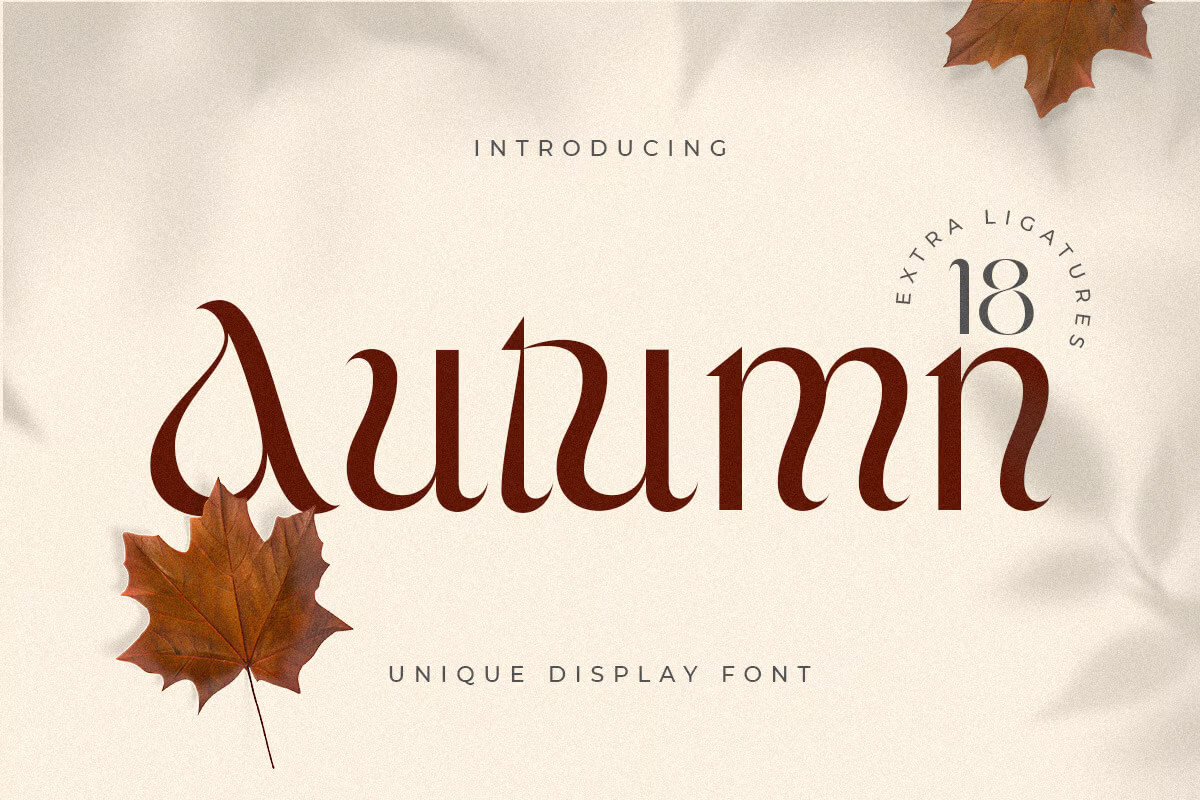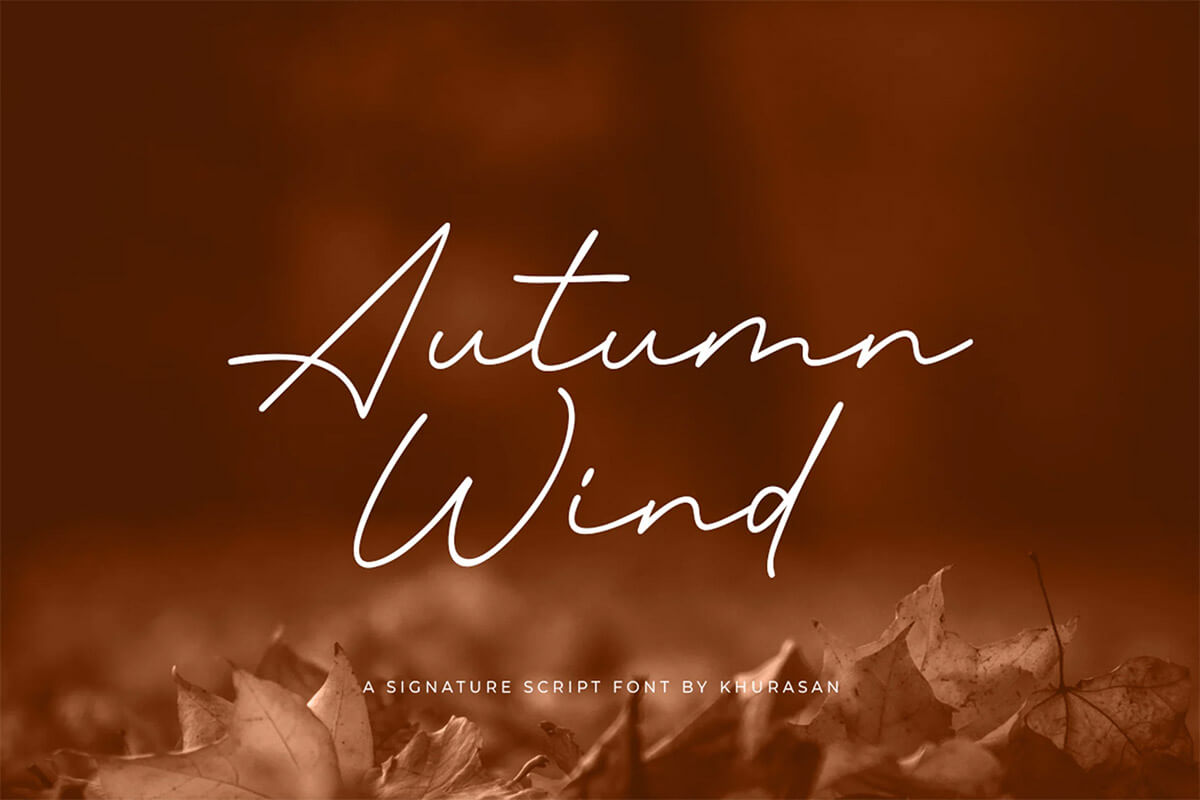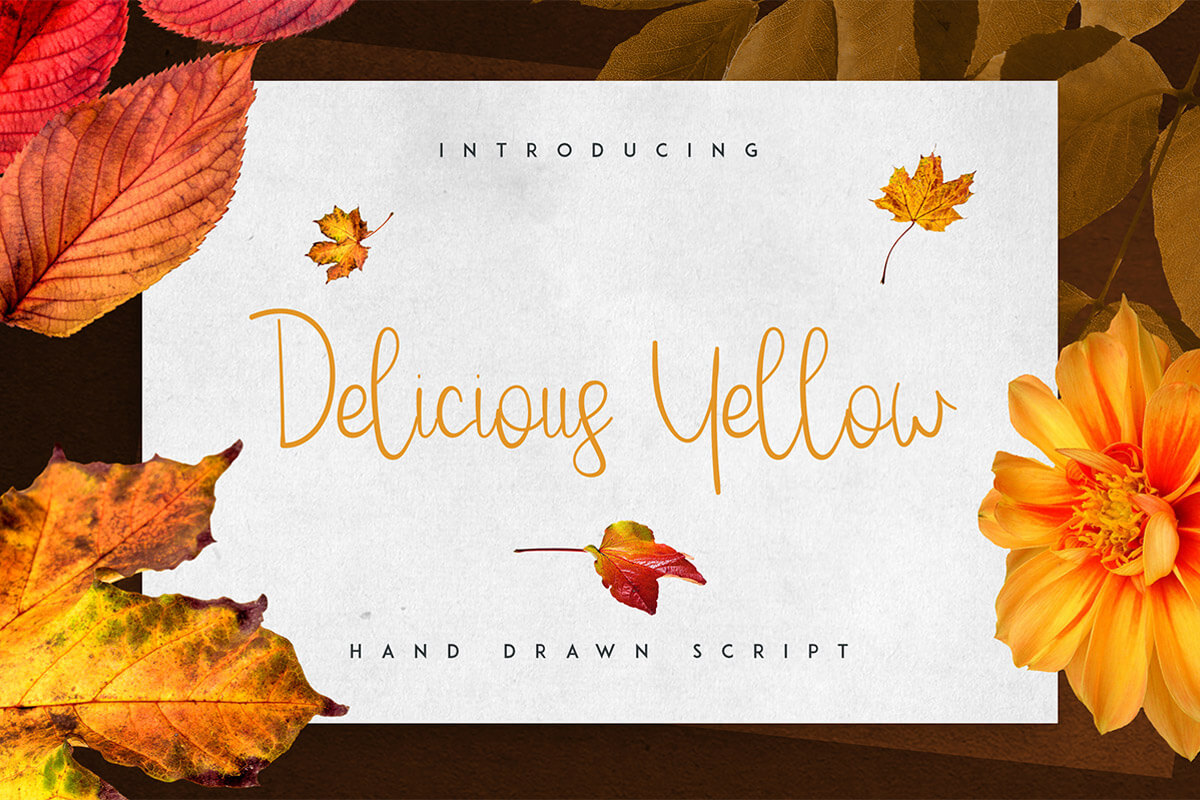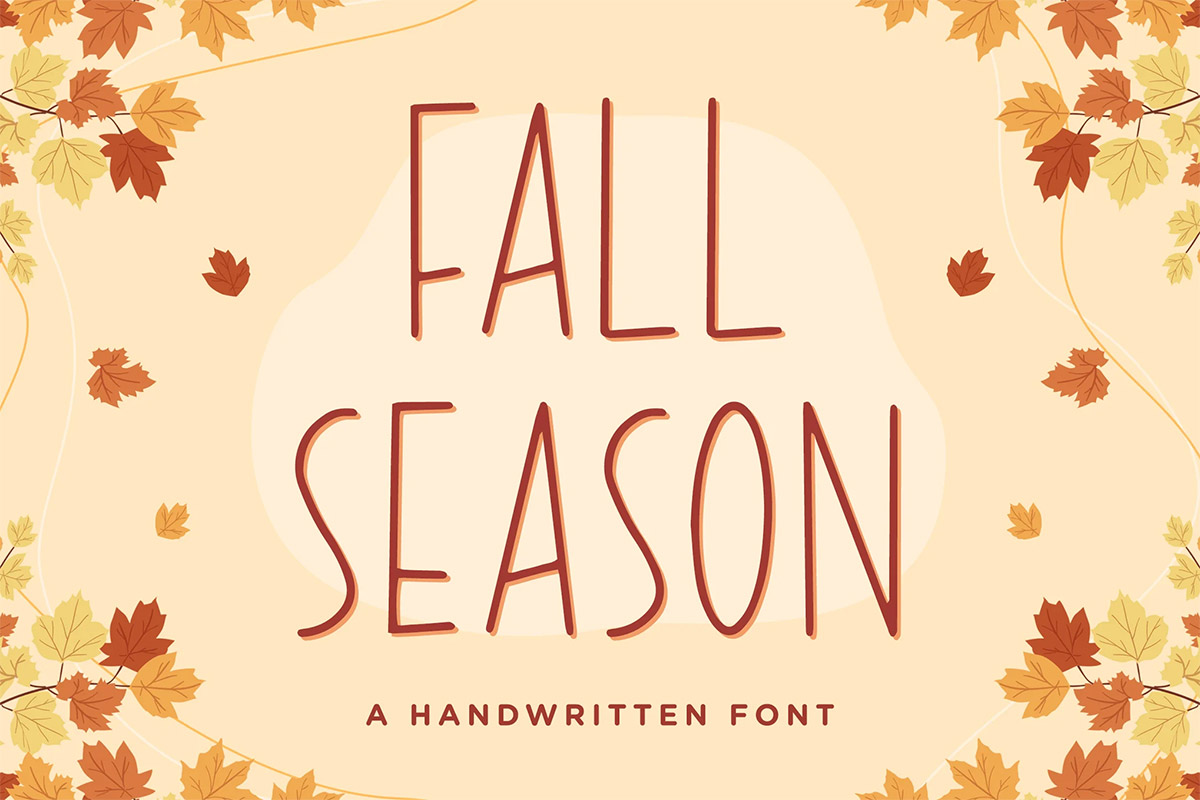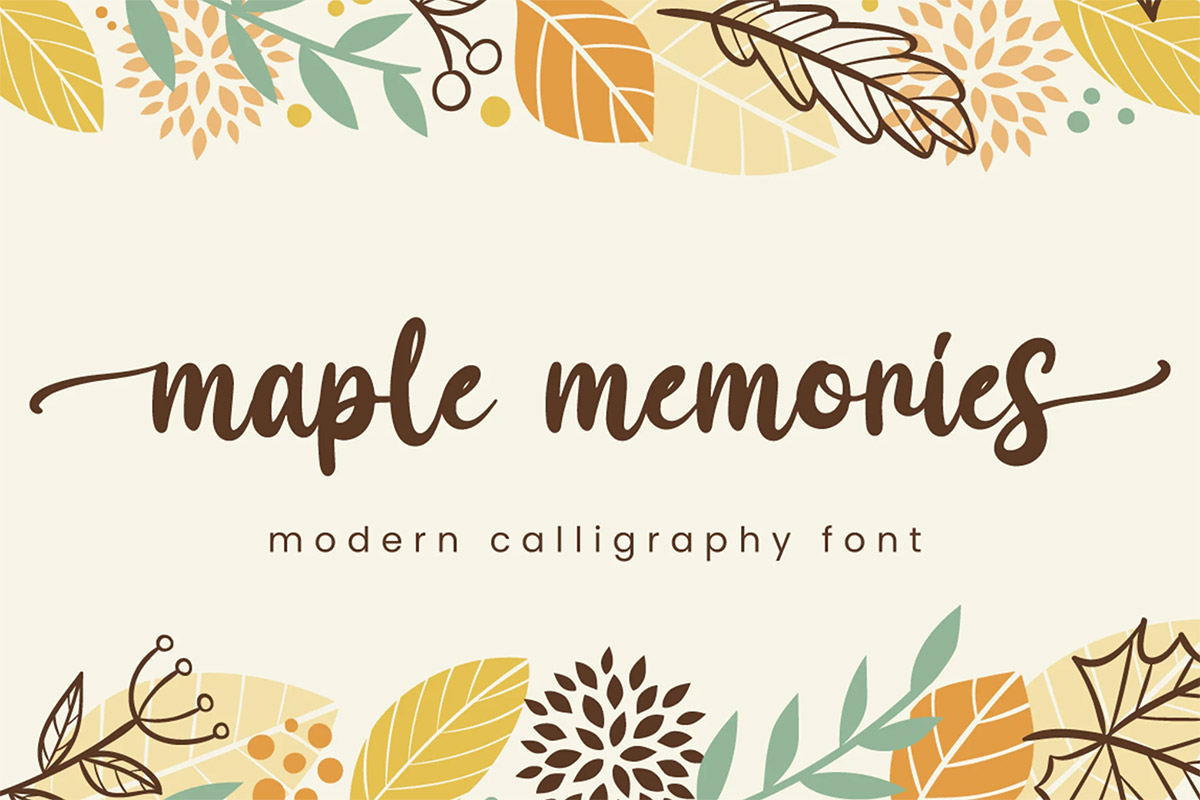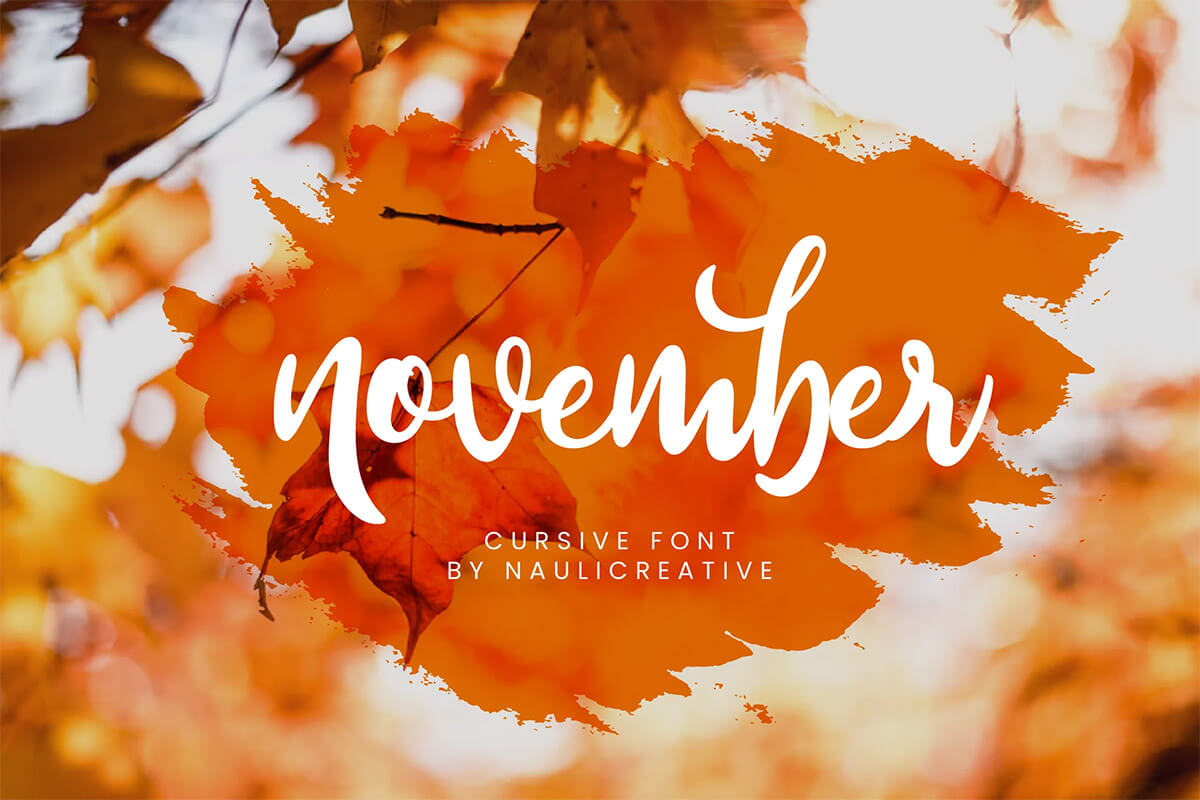
25 Best Fall Fonts (November Feel)
Crisp Air. Warm Tones. Beautiful Fonts.
Fall hits different in November. The leaves are deep amber, sweaters are out, and every design project suddenly wants that cozy, lived-in charm. Whether you’re working on seasonal prints, Thanksgiving invites, or Pinterest quotes with pumpkin vibes — the right font can wrap your design in that perfect autumn feeling.
This collection brings you 25 handpicked fonts that feel like November — think handwritten warmth, rustic serifs, soft curves, and earthy textures. They’re made for fall lovers, storytellers, crafters, and anyone trying to bottle up that crisp, golden-hour magic.
From vintage charm to modern coziness, these fonts are versatile, emotional, and ready to make your seasonal designs shine.
Let your designs fall into place. 🍂
The Best Fall Fonts for November
Here’s a breakdown of the best fall fonts you can use to make your projects stand out.
1. Haniya Handmade Font
This rustic, handwritten typeface is ideal for bringing a personalised flavour to any design. The warm, flowing lines make me think of a letter that was written by hand.
Uses:
• Wedding invitations
• Blog headers
• Personalized branding
2. Natalee Brush Font
A bold brush font with textured strokes that create a natural, organic feel. It’s perfect for fall-themed quotes and DIY crafts.
Uses:
• Quote graphics
• Fall posters
• Greeting cards
3. Autumn Modern Serif Font
This sleek serif font combines modern elegance with subtle autumnal touches, making it ideal for professional projects or minimalist designs.
Uses:
• Magazine covers
• Branding
• Website headers
4. Autumn Orange Handwritten Font
Playful and cheerful, this handwritten font brings a burst of personality to your seasonal designs. Its whimsical strokes feel like leaves dancing in the wind.
Uses:
• Seasonal logos
• Packaging design
• DIY autumn projects
5. Autumn Sunset Handwritten Font Duo
Combining a script font with a sans-serif pair, this duo is versatile for any fall project. Use the script font for headlines and the sans-serif for body text.
Uses:
• Menu designs
• Event invitations
• Cozy product labels
Special Fonts to Improve Your Autumn Look
6. Blessed Fall Handwritten Font
This charming handwritten font feels like a love letter to autumn. Its elegant yet relaxed strokes make it ideal for personal and professional projects.
Uses:
• Fall-themed invitations
• Thank-you notes
• Seasonal social media posts
7. Cute Maple Display Font
With its playful curves and bold appearance, Cute Maple Display Font captures the fun and whimsy of fall. Its maple-leaf-inspired details make it stand out.
Uses:
• Kids’ event posters
• DIY projects
• Branding for seasonal products
8. Fall Season Handwritten Font
A delicate handwritten font that oozes simplicity and charm. It’s perfect for subtle, classy designs.
Uses:
• Wedding stationery
• Blog banners
• Recipe cards
9. Holifall Autumn Tropical Fall Font
A unique take on autumn fonts, this typeface blends tropical influences with fall aesthetics. It’s bold, dynamic, and eye-catching.
Uses:
• Travel brochures
• Seasonal branding
• Creative invitations
10. Maple Memories Script Font
Elegant and timeless, Maple Memories combines script elements with modern calligraphy. It’s perfect for creating designs that feel both nostalgic and sophisticated.
Uses:
• Greeting cards
• Elegant event invitations
• Lifestyle branding
Modern and Versatile Choices
11. Orange Leafy Autumn Display Font
This font features bold, leafy accents, making it a perfect choice for impactful seasonal headlines.
Uses:
• Seasonal flyers
• Digital banners
• Packaging design
12. Savor Fall Modern Display Typeface
A refined, modern display font with clean lines and subtle fall-inspired details. Its versatility makes it ideal for both print and digital projects.
Uses:
• Branding
• Social media graphics
• Editorial layouts
13. Pear Leaves Autumn Script Font
Soft and elegant, this script font feels like a cozy handwritten note. Its flowing style adds warmth to any project.
Uses:
• Greeting cards
• Gift tags
• Holiday menus
14. Start Autumn Modern Serif Typeface
This modern serif font balances sophistication with seasonal vibes. Its clean edges make it a great choice for professional projects.
Uses:
• Magazine covers
• Minimalist posters
• Branding materials
15. Thanks Autumn Handwritten Font
This handwritten font embodies gratitude and warmth. It’s perfect for designs that focus on Thanksgiving themes.
Uses:
• Thank-you notes
• Event invitations
• Seasonal ads
Creative Display and Script Fonts for November
16. Warm Autumn Handwritten Font
FAQs About Fall Fonts
What Are Fall Fonts?
Fall fonts are typefaces inspired by the aesthetics of autumn. They often feature natural, rustic, or cozy elements that evoke the season’s warmth.
How Can I Use Fall Fonts?
Fall fonts are versatile and can be used for:
1. Invitations
2. Seasonal branding
3. Posters
4. Digital marketing
5. Product packaging